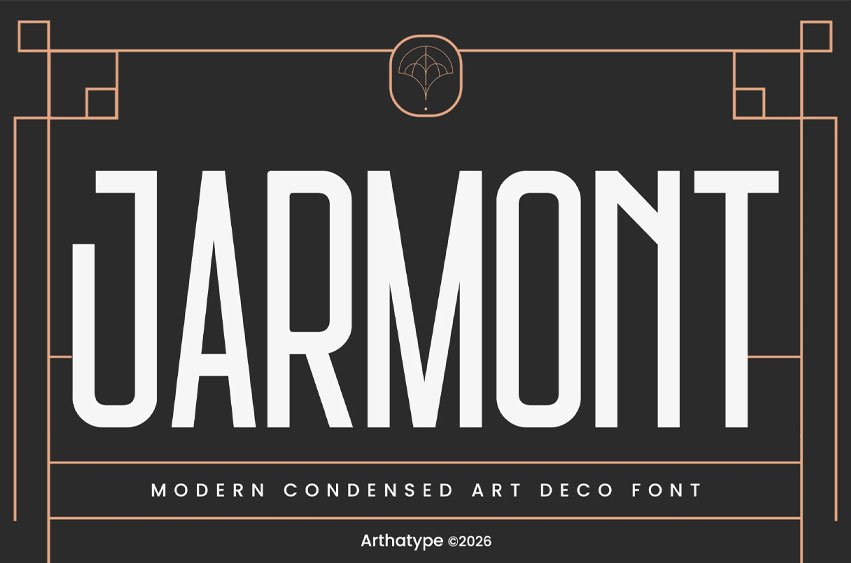
Jarmont Font is a modern condensed Art Deco font by Arthatype Studio. Inspired by the timeless architecture of the Art Deco movement and refined with contemporary craftsmanship, AT Jarmont blends elegant proportions, clean lines, and distinctive details to create typography that feels both classic and modern.
Its tall, space-efficient condensed structure makes it ideal for creating striking headlines, refined branding, and memorable visual identities without compromising readability. Whether used in print or digital media, AT Jarmont delivers a confident presence that instantly elevates every composition.
Designed for creatives who appreciate timeless aesthetics and modern functionality, AT Jarmont adapts effortlessly to a wide range of professional projects. Its refined character set and distinctive Art Deco personality help create typography that feels elegant, memorable, and built to last.